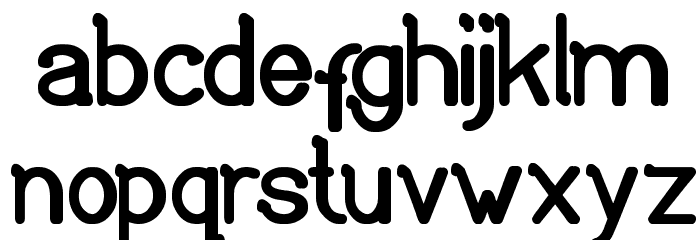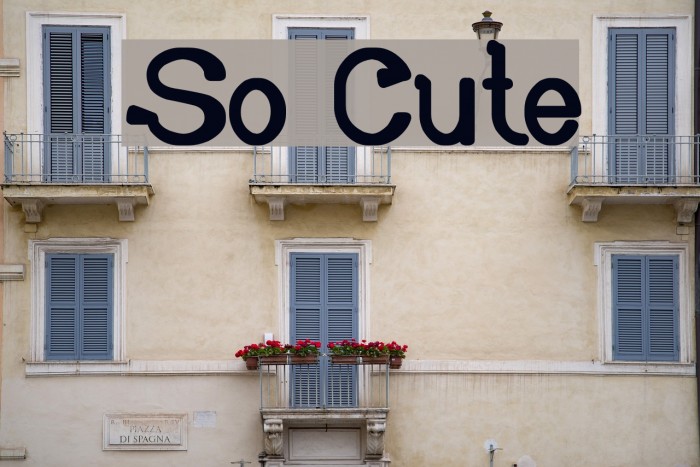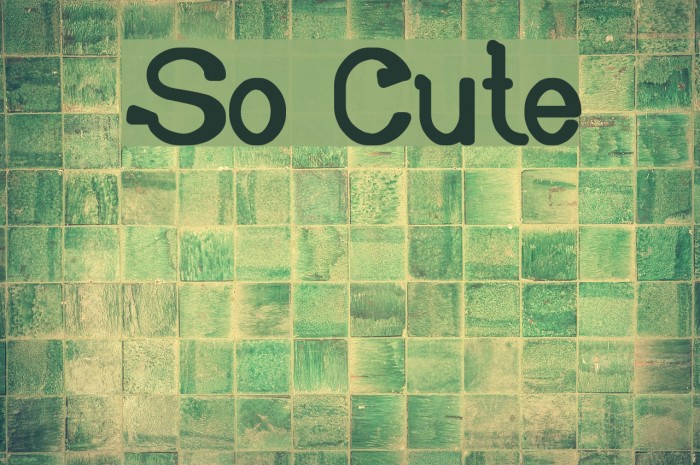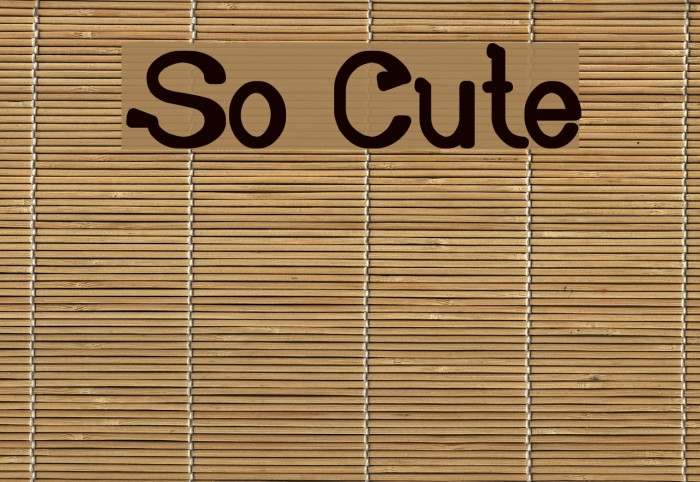
So Cute Font
This playful and whimsical font features rounded edges and a bold, friendly appearance. The characters are designed with a unique, almost cartoonish style that gives them a fun and approachable feel. The uppercase letters maintain a consistent height, while the lowercase letters have a slightly more varied structure, adding to the font's charm. The overall design is clean and legible, making it suitable for a variety of creative projects. The font's playful nature is emphasized by its rounded terminals and smooth curves, creating an inviting and cheerful aesthetic.
A playful, rounded font with a bold and friendly appearance.
- Proposed Projects: Ideal for children's books, playful branding, greeting cards, and fun posters.
- Overall Style: Playful